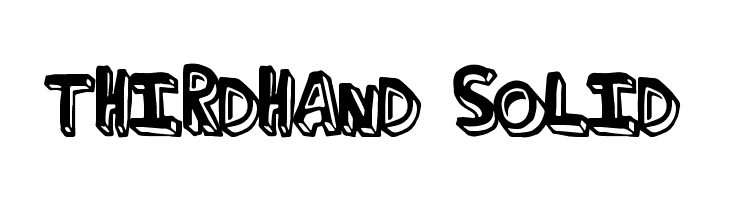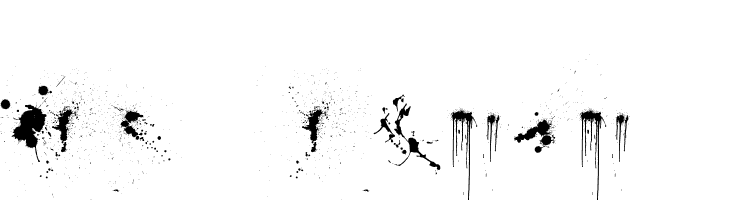
An abstract, graffiti-like font with ink splatter aesthetics.
A bold, playful font with a hand-drawn, graffiti-like style.
A bold, hand-drawn font with a playful, graffiti-like style.
A bold, playful font with an edgy, graffiti-inspired style.
A bold, graffiti-inspired font with sharp, angular lines and dynamic curves.
A bold, three-dimensional, graffiti-style font with a playful and dynamic appearance.
A bold, angular font with a dynamic, graffiti-inspired style.
A bold, dripping font with a playful, graffiti-like style.
A bold, edgy font with jagged, graffiti-like characters.